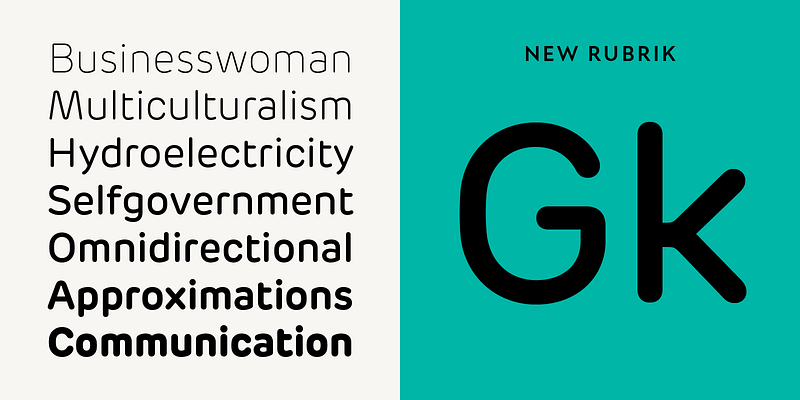
New Rubrik Font Free Download is a sleek and modern sans-serif typeface, designed for contemporary design projects that require a strong and versatile font. Its clean, geometric letterforms and balanced proportions make it ideal for branding, logos, web design, editorial layouts, and other professional applications.
New Rubrik Font Free Download combines modern aesthetics with readability, ensuring that it works well for both display text and body copy. Its neutral, minimalist style allows it to adapt easily across various design contexts, making it a go-to choice for designers looking for a sophisticated yet approachable typeface.
Whether you're designing for corporate branding, digital content, or print materials, New Rubrik brings a polished, modern touch to your typography.